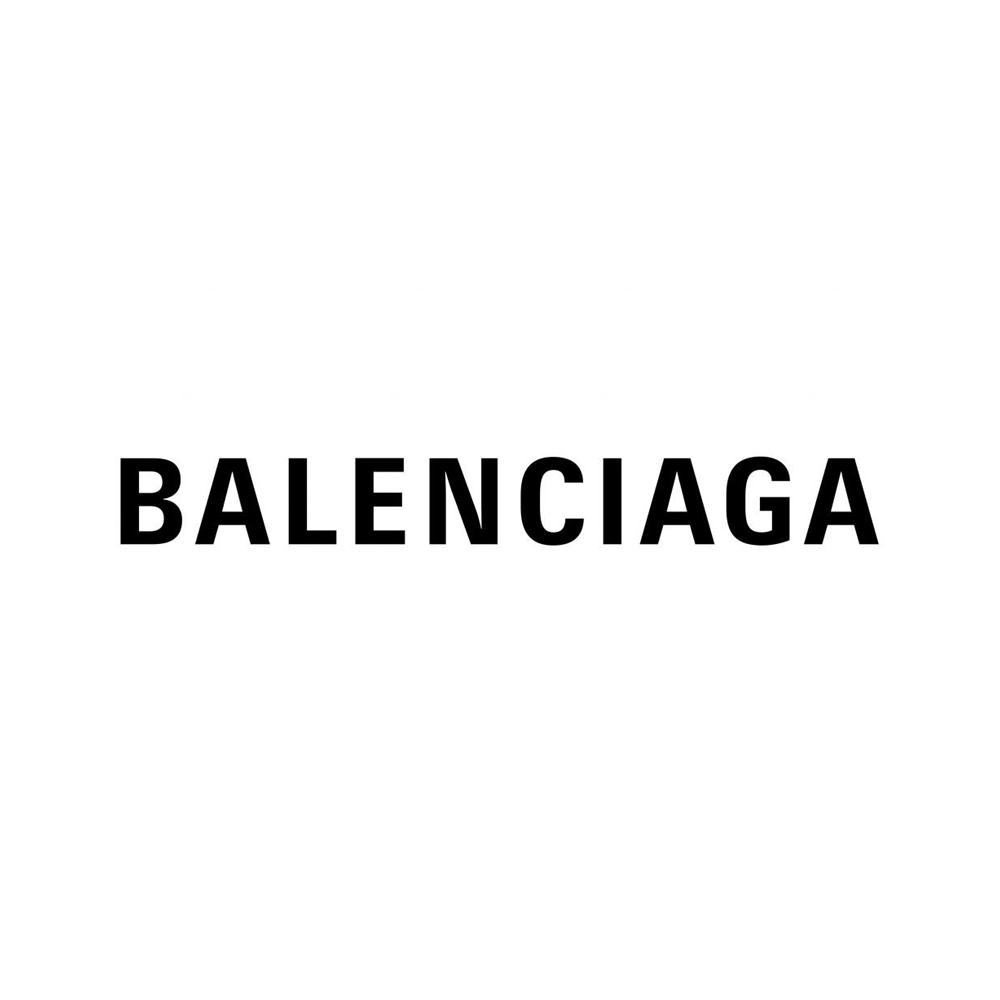
Balenciaga Font
LogoBalenciaga is a high-end fashion brand founded by designer Cristóbal Balenciaga in 1919. The brand is known for its luxurious clothing, footwear, and accessories and has a strong presence in the fashion industry.
The font used in the Balenciaga logo looks very similar to Utah Condensed Bold. Utah is a sans-serif font designed by Frederic Goudy in 1936. We also found a free for personal use alternative called OPTIUniversSixtySeven Font.